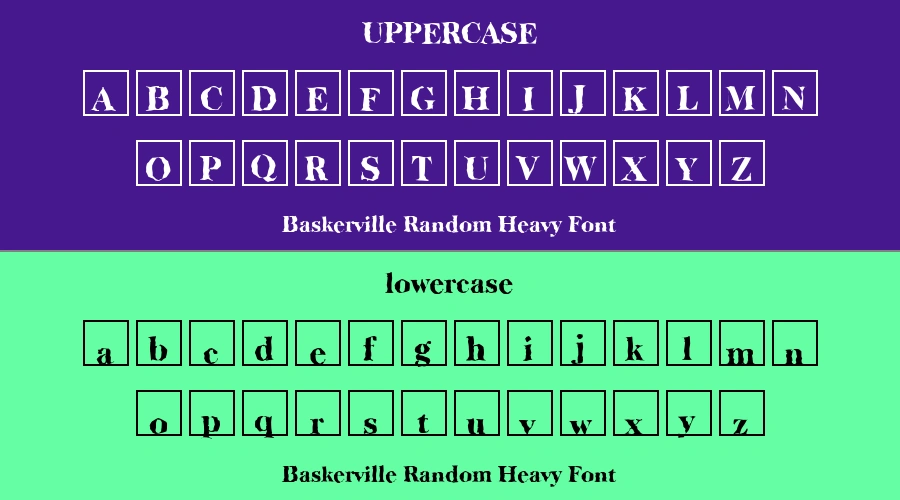
About Baskerville Random Heavy Font
Designed with precision, Baskerville Random Heavy Font merges subtle details with artistic impact in every character. This versatility makes it particularly effective for film titles, where integrity and design innovation directly impact communication quality. Each letterform demonstrates meticulous craftsmanship.
Technical excellence shines through elements like graceful transitions and arrow sets, enhancing typographic versatility. In artistic statements settings, Baskerville Random Heavy Font proves its worth through superior brand recognition. The thoughtful execution of counter aperture and brand personality ensures professional results.